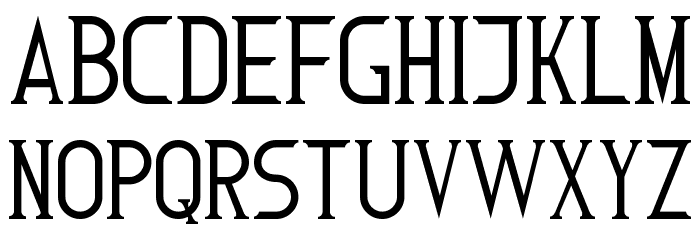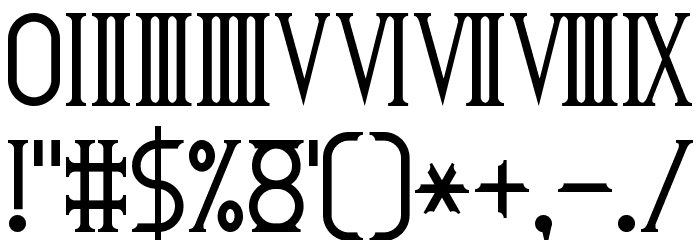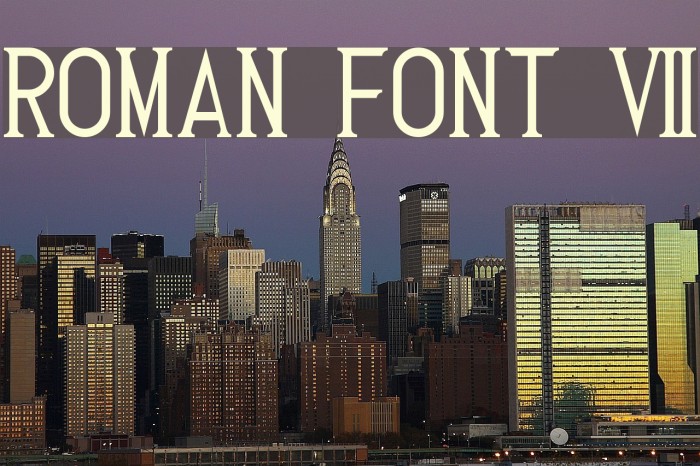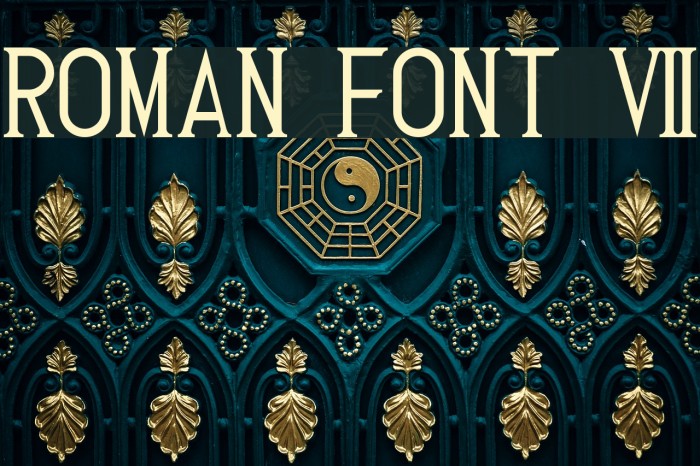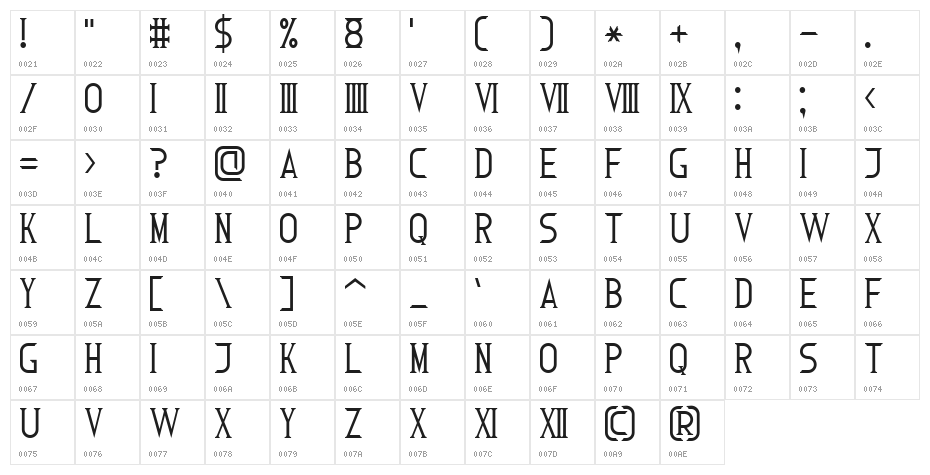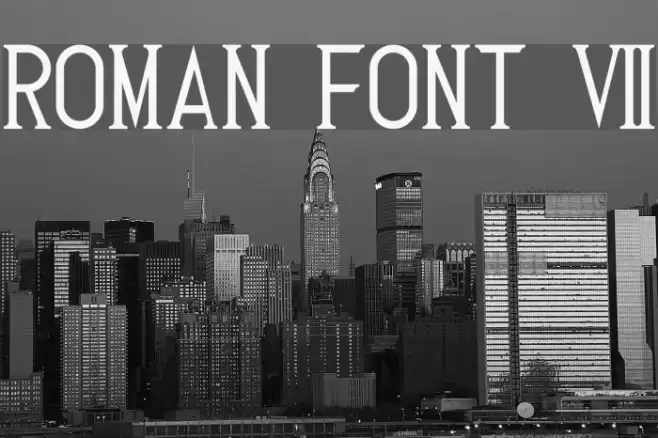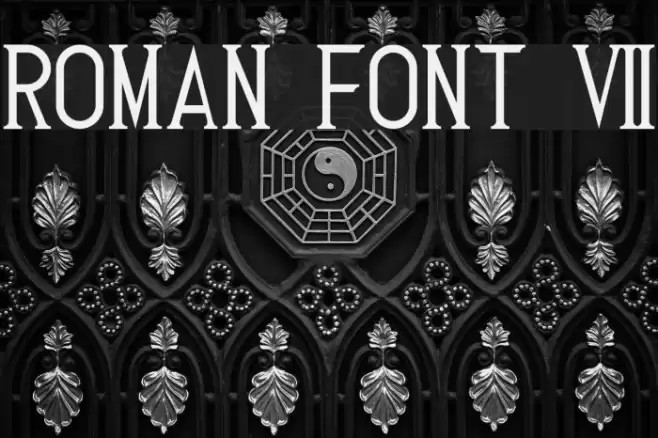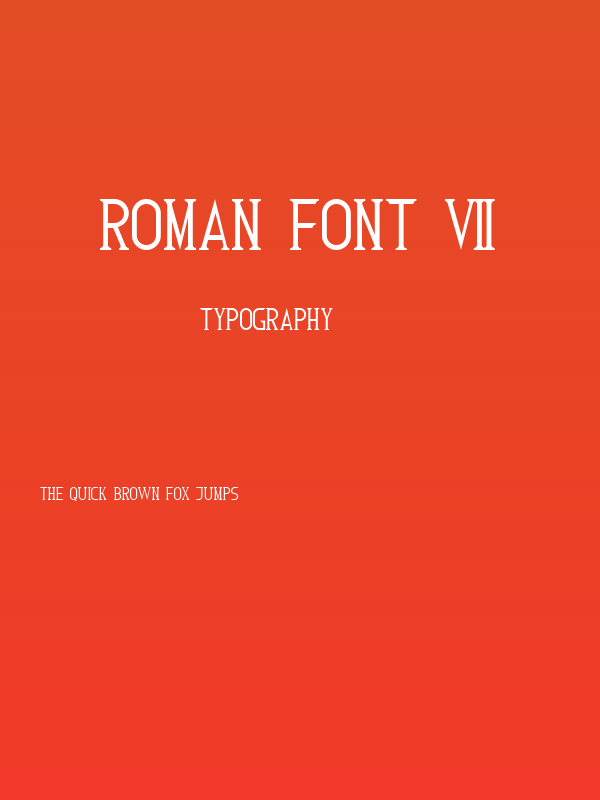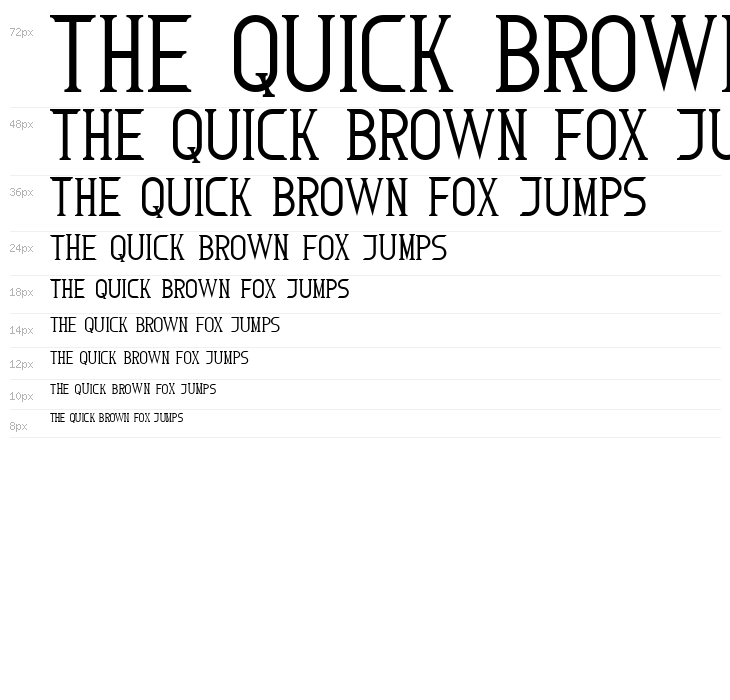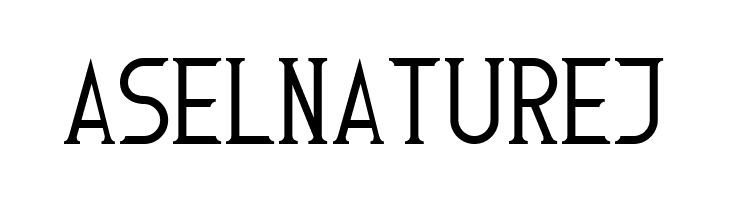
Roman Font 7 Font
This font exhibits a classic Roman style with a strong emphasis on vertical lines and sharp serifs. The uppercase letters are tall and elegant, featuring a consistent stroke width that gives a sense of stability and tradition. The lowercase letters maintain a similar structure, providing a harmonious balance between the two cases. The numerals are styled in a traditional Roman numeral fashion, adding a historical touch. Special characters are designed with the same attention to detail, ensuring they complement the overall aesthetic. This font is ideal for projects that require a touch of sophistication and timelessness.
A classic Roman-style font with sharp serifs and consistent stroke width.
- Proposed Projects: Ideal for formal invitations, historical documents, book covers, and branding that requires a classic touch.
- Overall Style: Classic
- Use Case: Headlines, Logos, Formal documents